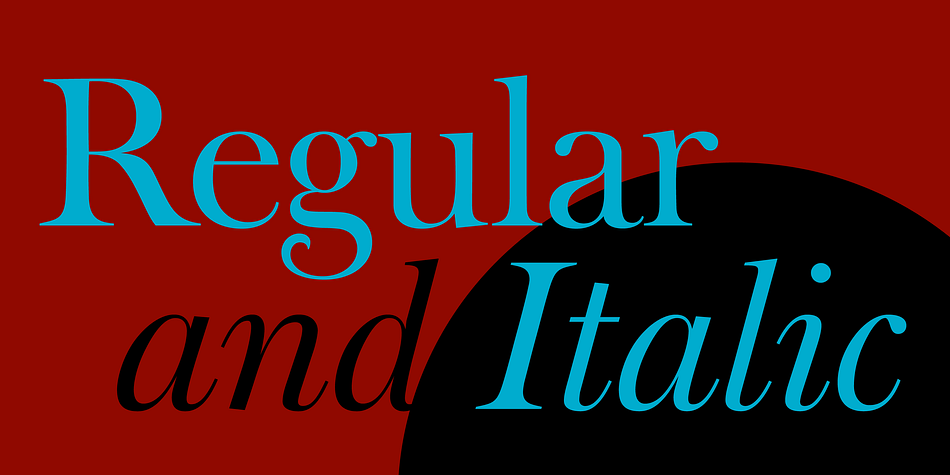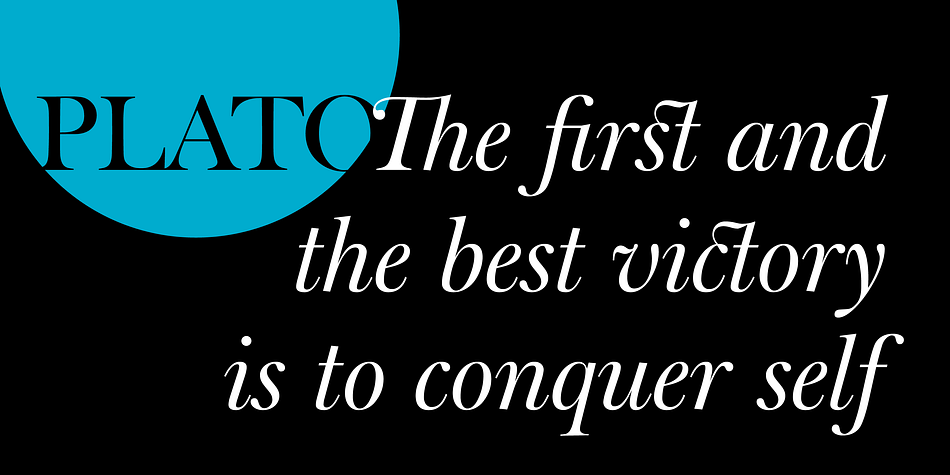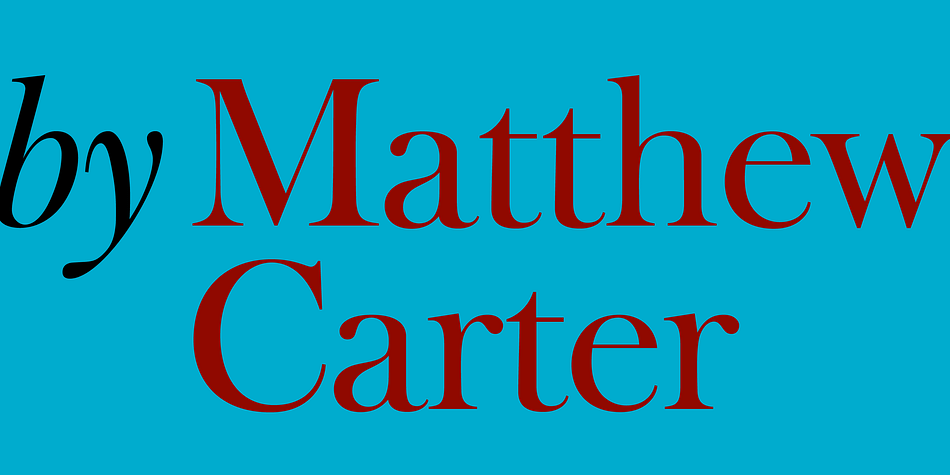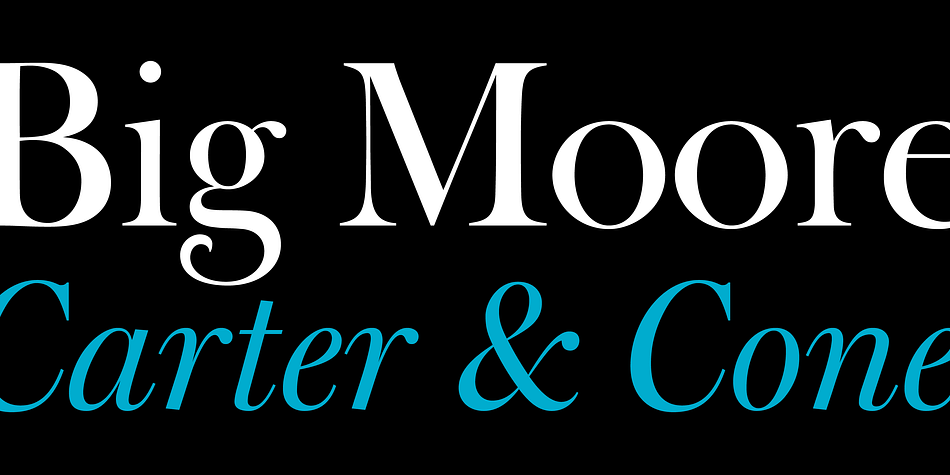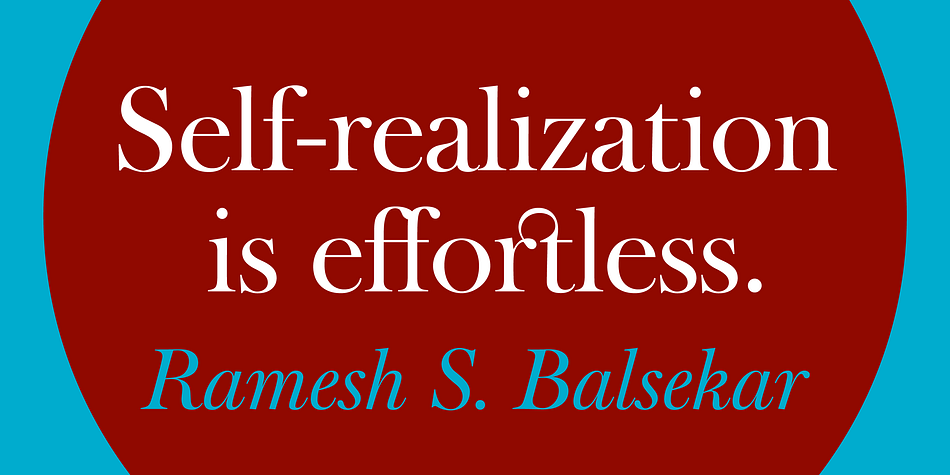
Designed by Matthew Carter, Big Moore is a display serif and serif font family. This typeface has two styles and was published by Carter & Cone.
Matthew Carter’s Big Moore, like its cousin in spirit, Big Caslon, is a grand serif design. Offered in two styles, Regular and Italic, it is intended for the largest of sizes. A 1766 specimen by Isaac Moore, former manager of Joseph Fry’s foundry in Bristol, England, shows many types inspired by John Baskerville’s. But a century later, standardization had foisted inept lining figures and shortened descenders upon these designs. Matthew Carter remedies the tragedy with Big Moore, restoring oldstyle figures, full-length descenders, and historic swashes to this regal serif in two styles.
Foundry | Carter & Cone |
Designer | Matthew Carter |